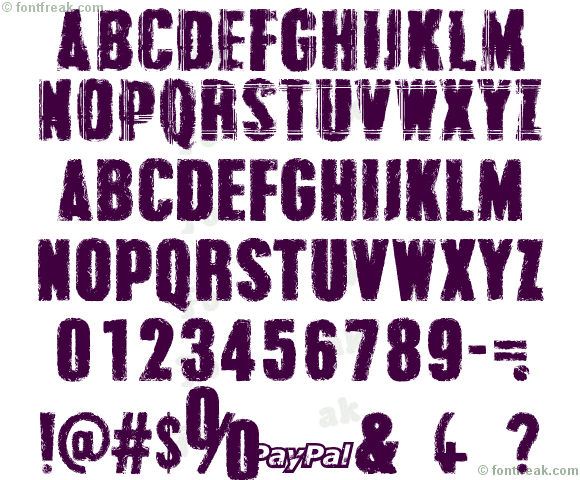
Grunge Overlords
Grunge Overlords by Hero Fonts is a striking display font that embodies the raw and edgy essence of the grunge aesthetic. Characterized by its rough, textured strokes, this font features a bold stroke weight that immediately captures attention, making it ideal for projects that require a sense of rebellion or unconventional flair. The uneven edges and distressed appearance lend a unique charm, while the generous spacing between characters ensures readability even in larger formats.
This font excels in various creative applications. It’s particularly well-suited for movie posters, where its bold presence can evoke a gritty atmosphere. Additionally, Grunge Overlords is a fantastic choice for album covers, especially in rock or alternative genres, where its rugged style aligns seamlessly with the music's vibe. Restaurant menus aiming for a trendy, urban feel will also benefit from its distinct character, as will promotional materials for events like music festivals or art shows. Graphic designers and content creators looking to add a touch of authenticity to their work will find this font invaluable.
What sets the Grunge Overlords font apart is its ability to evoke emotion through its visual style. The combination of its bold design and imperfect textures creates a sense of authenticity that resonates with audiences. For those seeking a distinctive typeface that stands out in a crowded market, the Grunge Overlords font free download provides an opportunity to elevate design projects with its unique grunge-inspired aesthetic.